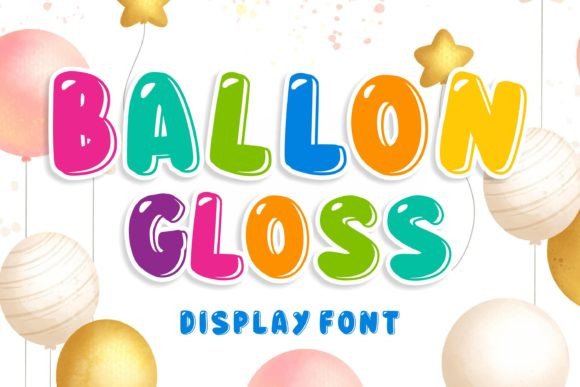
Ballon Gloss Font: The Playful and Delightful Display Font for Unforgettable Creations
Immerse yourself in a world of whimsy and charm with Ballon Gloss, the captivating display font that will transform your designs into enchanting visual experiences. Designed by the talented Riki.studio, Ballon Gloss is a playful and approachable font that exudes a sense of fun and camaraderie. Its casual and easy-to-read character makes it the perfect choice for children-themed designs, school projects, and any endeavor that calls for a touch of lightheartedness.
With Ballon Gloss, you'll embark on a creative journey where imagination knows no bounds. Its rounded and bubbly letters dance across the page, inviting you to explore a realm of endless possibilities. This font is a true masterpiece, meticulously crafted to evoke a sense of joy and wonder.
Step into a world where smiles and laughter abound, and let Ballon Gloss be your creative companion. Whether you're designing posters, invitations, greeting cards, or social media graphics, this font will add an unforgettable touch of magic to your work. Its charming personality shines through in every word, captivating audiences and leaving a lasting impression.
Ballon Gloss is not just a font; it's an invitation to unleash your creativity and embark on an extraordinary adventure. Its versatility knows no limits, making it suitable for a diverse range of projects. From playful children's books to whimsical logos, Ballon Gloss adapts effortlessly, bringing a touch of enchantment to every design.
So, dive into the delightful world of Ballon Gloss and let your imagination soar. With this exceptional font by your side, you'll create designs that spark joy, ignite smiles, and leave an indelible mark on the hearts of your audience.